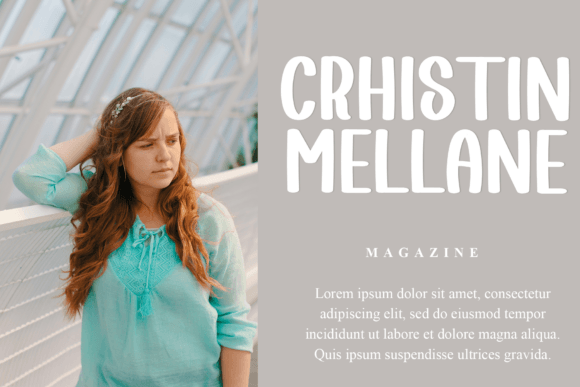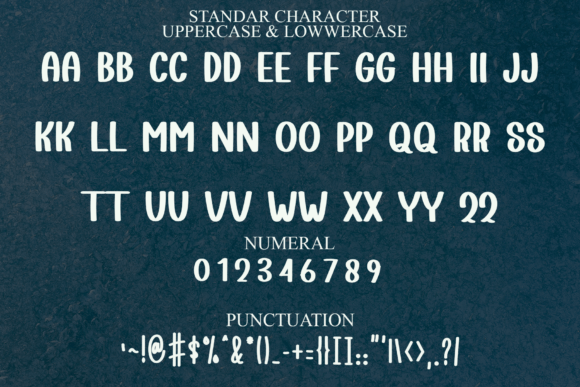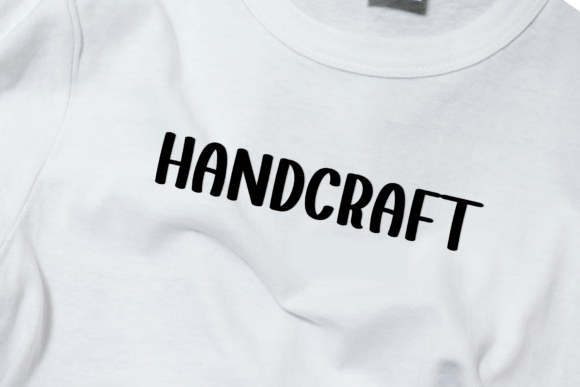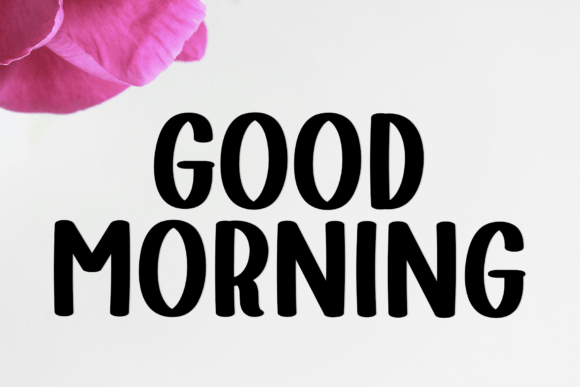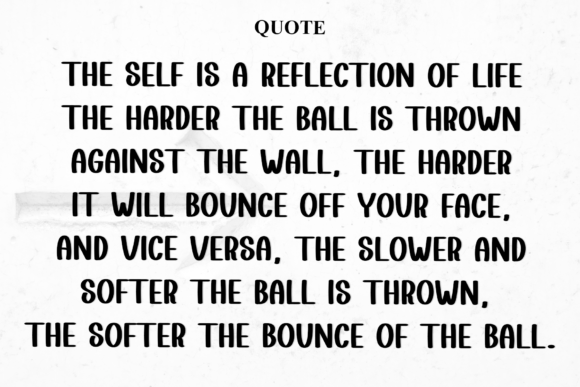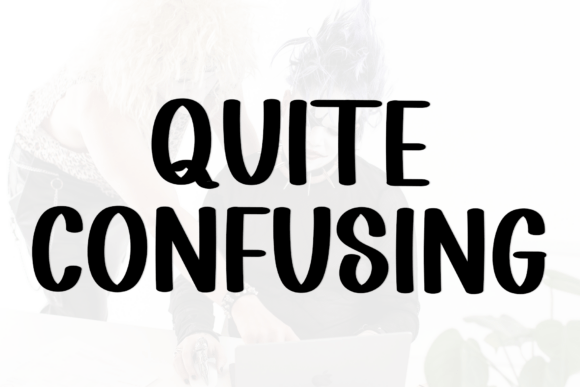
Annoying Font: The Ultimate Display Typeface for Grabbing Attention
Are you tired of using the same old fonts in your designs? Do you want to make a statement and grab the attention of your audience? Look no further than Annoying Font, a bold, eye-catching display typeface that’s sure to turn heads. As its name suggests, Annoying Font is a font that’s hard to ignore, with its thick letters and strong presence making it perfect for headlines, signs, and any other application where you want to make a bold statement.
The Power of Bold Typography
In the world of design, typography plays a crucial role in communicating your message and capturing the attention of your audience. A bold, eye-catching font can make all the difference in standing out from the crowd and making your design memorable. Annoying Font is a masterclass in bold typography, with its thick, chunky letters that demand attention. Whether you’re designing a poster, a flyer, or a website, Annoying Font is the perfect choice for making a statement.
What Makes Annoying Font So Effective?
So, what makes Annoying Font so effective at grabbing attention? Here are just a few reasons why this font is a game-changer:
- Thick Letters: Annoying Font features thick, chunky letters that are hard to ignore. The font’s bold weight makes it perfect for headlines, signs, and any other application where you want to make a bold statement.
- Strong Presence: Annoying Font has a strong presence on the page, making it perfect for designs where you want to dominate the visual landscape.
- Easy to Read: Despite its bold weight, Annoying Font is surprisingly easy to read, even at smaller sizes. This makes it perfect for a wide range of applications, from posters to websites.
How to Use Annoying Font in Your Designs
So, how can you use Annoying Font in your designs? Here are just a few ideas to get you started:
- Headlines: Use Annoying Font to create bold, eye-catching headlines that grab attention and draw the reader in.
- Signs: Annoying Font is perfect for signs, whether you’re creating a physical sign or a digital one. The font’s bold weight and strong presence make it easy to read from a distance.
- Posters: Add some impact to your posters with Annoying Font. The font’s bold weight and chunky letters make it perfect for creating eye-catching posters that demand attention.
- Websites: Use Annoying Font to add some personality to your website. The font’s bold weight and strong presence make it perfect for headings, titles, and other applications where you want to make a statement.
Tips for Working with Annoying Font
Here are just a few tips for working with Annoying Font:
- Use it Sparingly: Annoying Font is a bold font, and as such, it’s best used sparingly. Use it for headlines, titles, and other applications where you want to make a statement, but avoid overusing it.
- Pair it with a Simple Font: Annoying Font is a bold font, and as such, it can be overwhelming when paired with another bold font. Pair it with a simple font to create visual contrast and make your design more readable.
- Experiment with Colors: Annoying Font looks great in a wide range of colors, so don’t be afraid to experiment and find the perfect color for your design.
Annoying Font is a bold, eye-catching display typeface that’s perfect for grabbing attention in headlines, signs, and any other application where you want to make a bold statement. With its thick letters, strong presence, and easy readability, Annoying Font is a game-changer for designers and crafters. Whether you’re creating a poster, a flyer, or a website, Annoying Font is the perfect choice for making a statement. So why not give it a try and see the impact it can have on your designs?